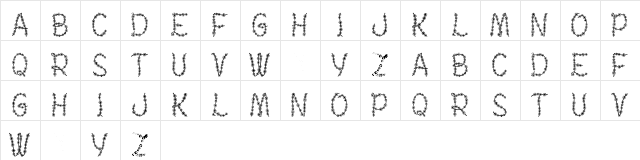
Judy's Garland Regular Font Preview
Judy's Garland Regular
Design Context for Judy's Garland Typeface
Judy's Garland is a composed and adaptable typeface that performs quietly and consistently across a wide range of design contexts.